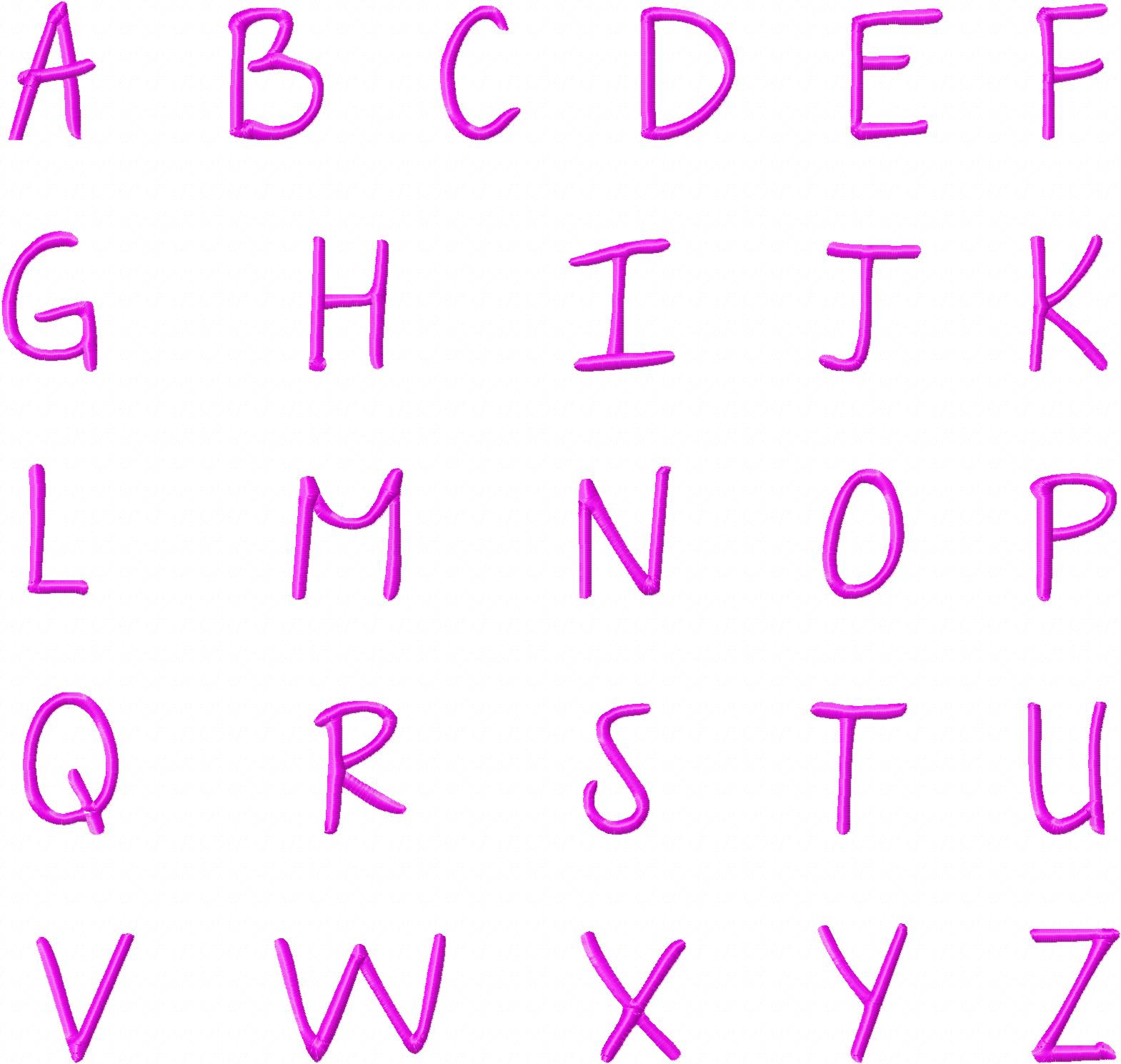
Today's Gold Member font is both delightful and whimsical. An awesome machine embroidery fully font set for use in all your personalization needs. Download the A Year Without Rain Machine Embroidery Font Set for Gold Members only.